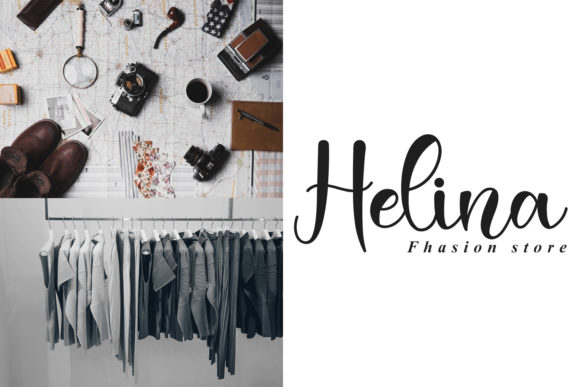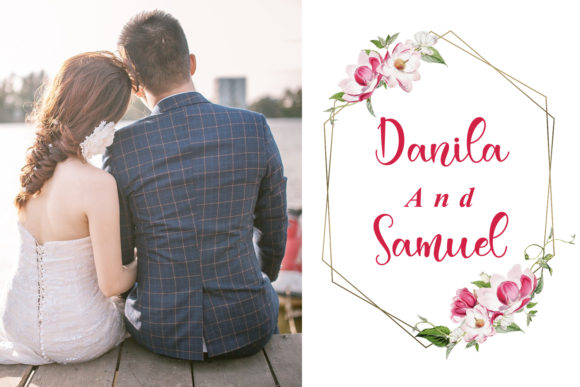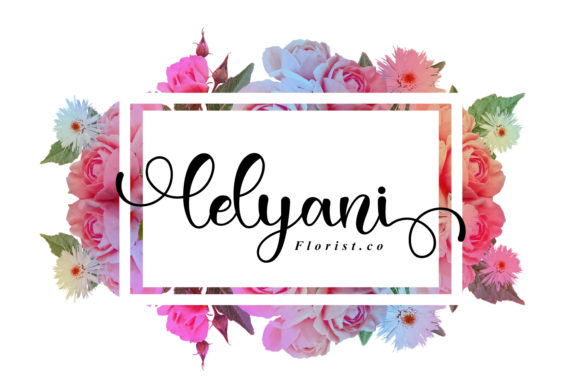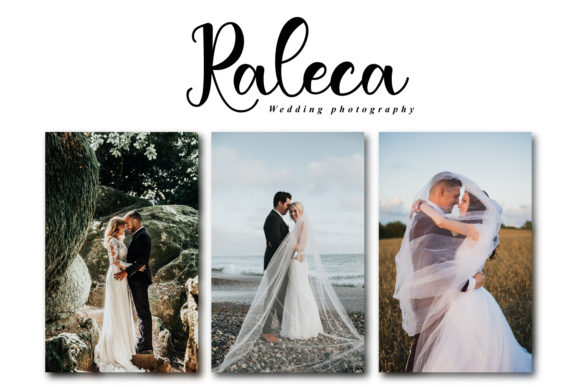
Fhania Font: The Elegant and Charming Choice for Designers and Crafters
In the world of typography, few fonts manage to convey the perfect blend of charm and elegance. Fhania Font is one such gem that has captured the hearts of designers and crafters alike. This beautiful handwritten font is perfect for adding a touch of sophistication and whimsy to various design projects. In this article, we’ll dive into the features and benefits of Fhania Font, and explore its numerous applications in the world of design.
The Charm of Fhania Font
Fhania Font feels equally charming and elegant, making it an excellent choice for designs that require a personal touch. Its elegant strokes and flowing curves give it a unique and captivating appearance that can instantly elevate any design. Whether you’re working on wedding invitations, thank you cards, quotes, greeting cards, logos, or business cards, Fhania Font is sure to make your project stand out.
One of the best things about Fhania Font is its versatility. It can be used in a wide range of design projects, from formal events to casual crafts. Here are some of the many ways you can use Fhania Font:
- Wedding Invitations: Add a touch of romance and elegance to your wedding invitations with Fhania Font. Its beautiful script and flowing curves make it perfect for formal wedding announcements.
- Thank You Cards: Express your gratitude in style with Fhania Font. Its charming and elegant appearance makes it ideal for thank you cards and other personal correspondence.
- Quotes and Greeting Cards: Fhania Font is perfect for adding a touch of whimsy and personality to quotes and greeting cards. Its elegant strokes and curves make it easy to read and visually appealing.
- Logos and Business Cards: Use Fhania Font to add a personal touch to your logos and business cards. Its unique and captivating appearance can help your brand stand out in a crowded market.
- Access Alternate Characters: Fhania Font comes with a range of alternate characters that you can use to add variety to your designs.
- Add Swashes and Flourishes: Use swashes and flourishes to add a touch of elegance and sophistication to your designs.
Why Designers and Crafters Love Fhania Font
Fhania Font has become a favorite among designers and crafters due to its unique combination of charm and elegance. Here are some reasons why:
- Unique and Captivating: Fhania Font has a unique and captivating appearance that can instantly elevate any design.
- Easy to Read: Despite its elegant and cursive appearance, Fhania Font is easy to read and understand.
- Versatile: Fhania Font can be used in a wide range of design projects, from formal events to casual crafts.
In conclusion, Fhania Font is a beautiful and elegant handwritten font that is perfect for designers and crafters looking to add a touch of sophistication and whimsy to their designs. Its versatility, unique appearance, and PUA encoding make it an excellent choice for a wide range of design projects. Whether you’re working on wedding invitations, thank you cards, quotes, greeting cards, logos, or business cards, Fhania Font is sure to make your project stand out. So why wait? Give Fhania Font a try today and experience the magic of elegant and charming typography!